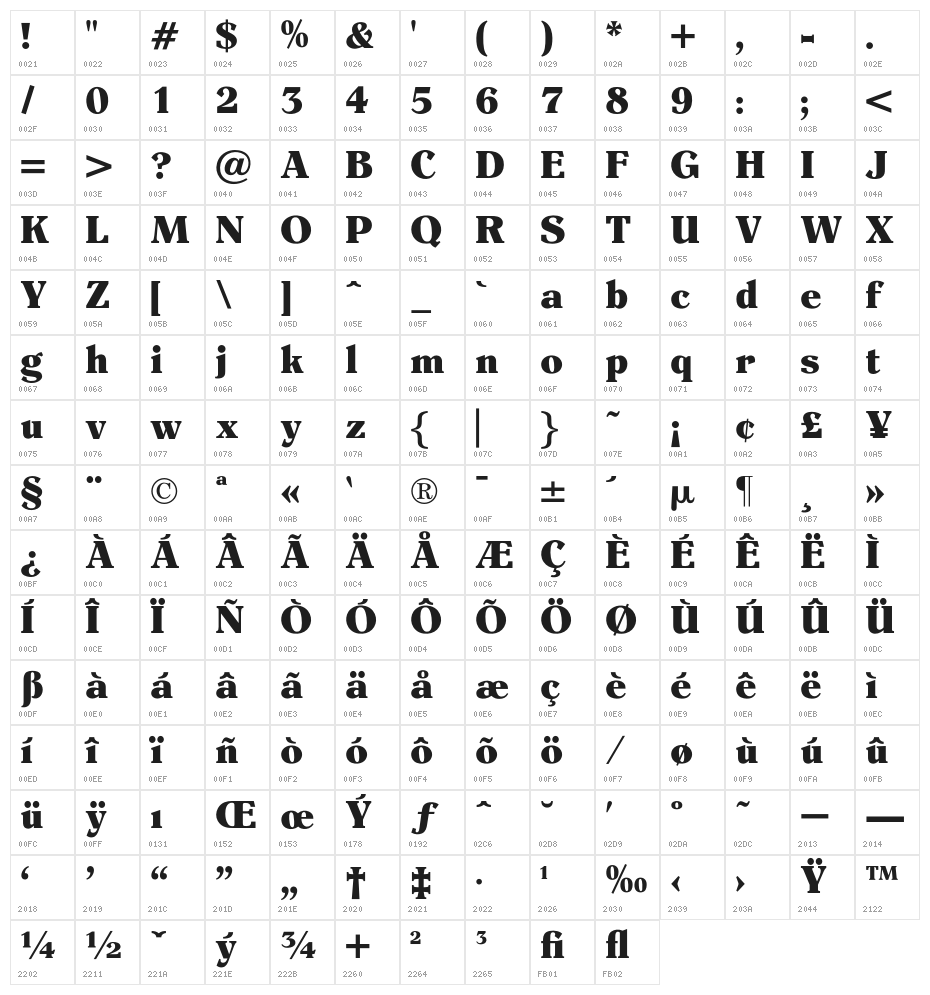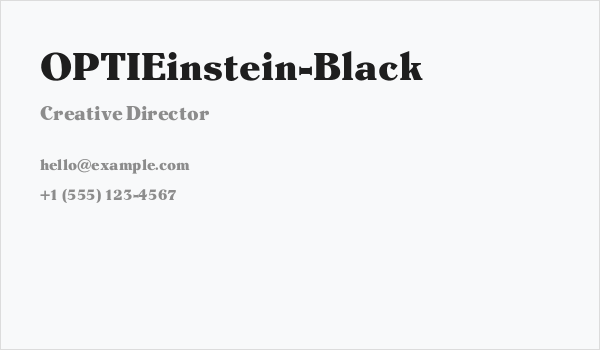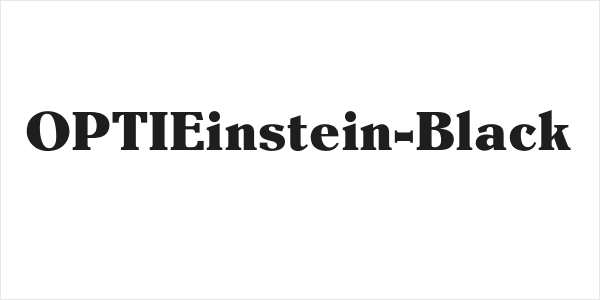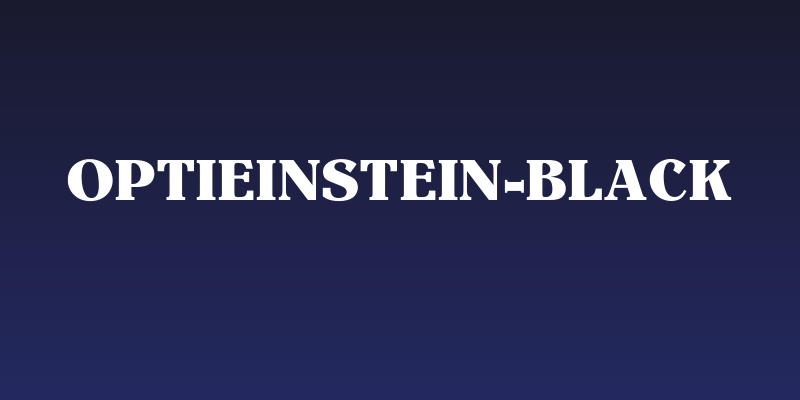
OPTIEinstein-Black Font
OPTIEinstein-Black Description
This font exhibits a bold and commanding presence with its thick, strong strokes and high contrast between thick and thin lines. The serifs are pronounced, adding a classic touch to the overall design. The uppercase letters are robust and authoritative, while the lowercase letters maintain a consistent weight, ensuring readability. The numerals are equally bold, making them stand out effectively. Special characters are designed with the same attention to detail, ensuring they integrate seamlessly with the rest of the typeface. This font is ideal for making a strong visual impact.
Overall StyleClassic
Proposed ProjectsIdeal for headlines, posters, branding, and any project requiring a strong visual impact.